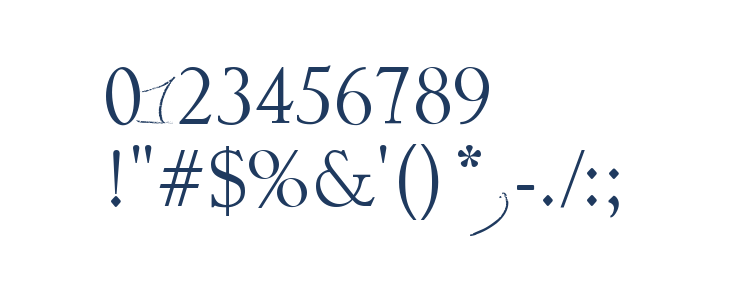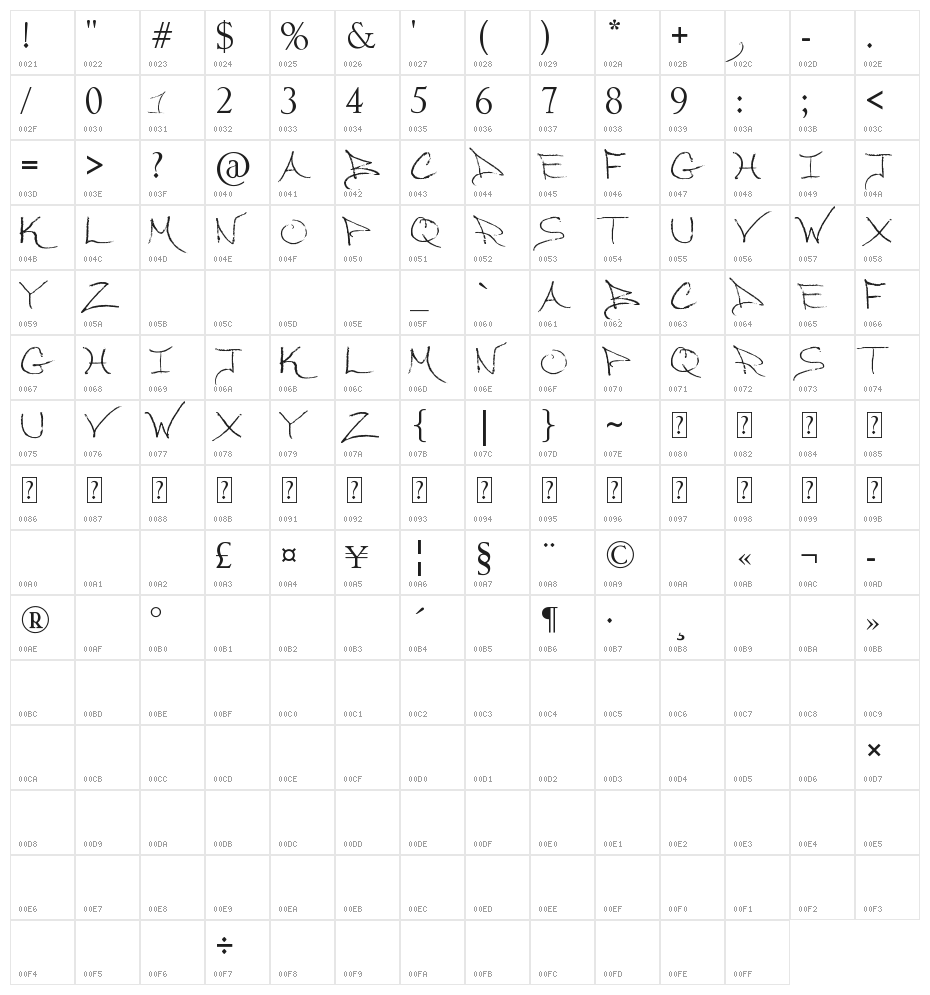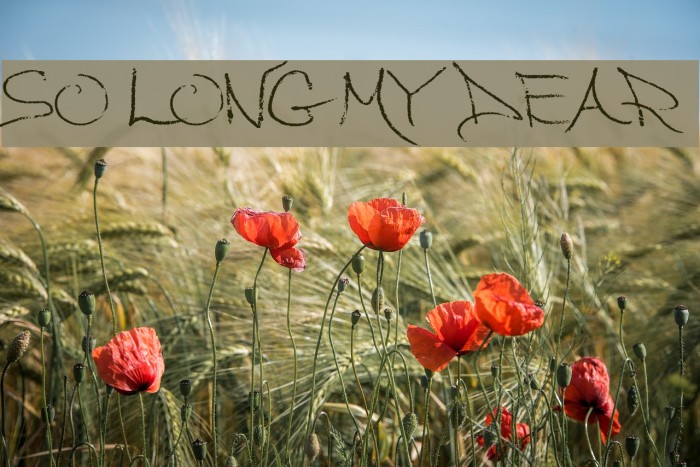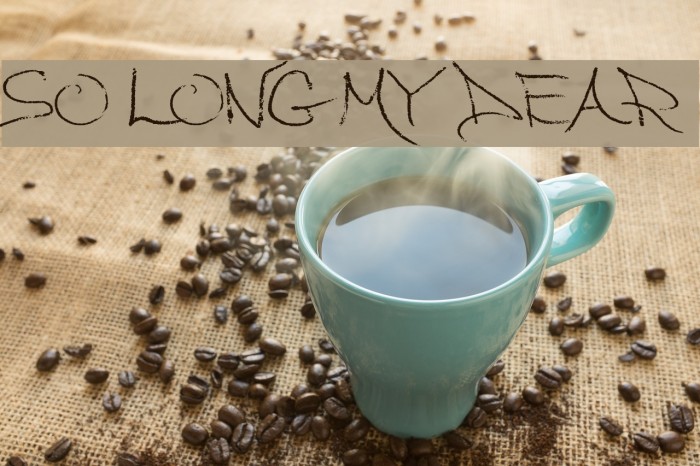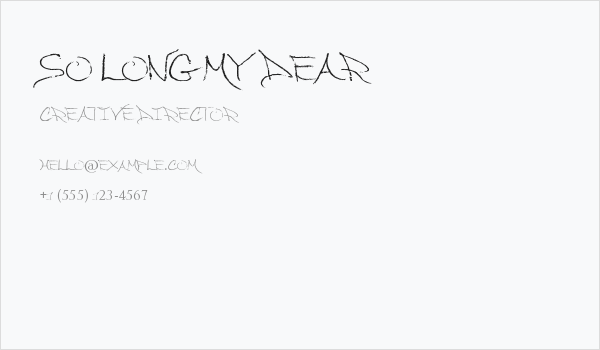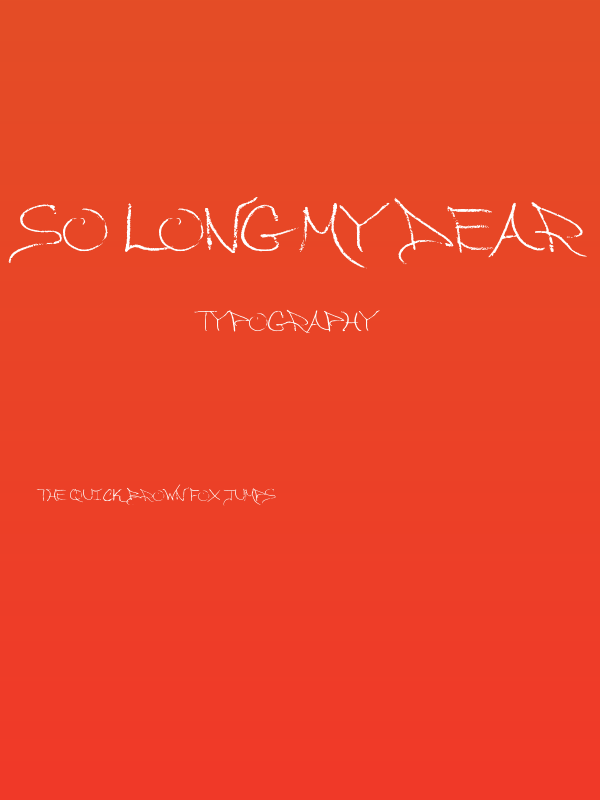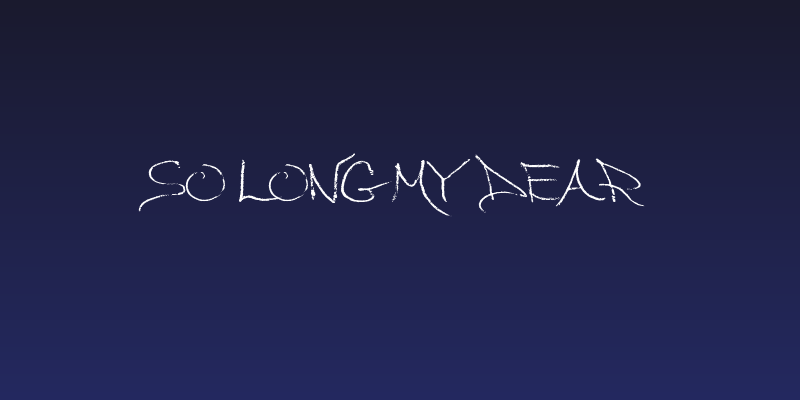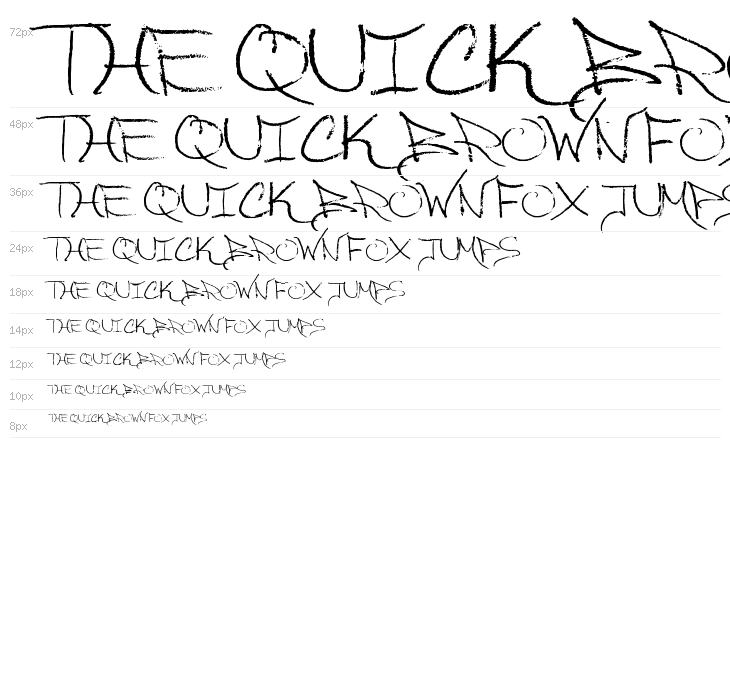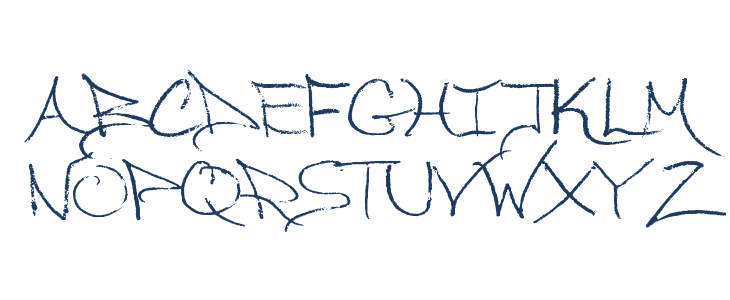
So Long My Dear Font
So Long My Dear Description
This font features a unique, artistic style with a hand-drawn appearance. The letters have a rough, textured look, giving them a dynamic and expressive quality. The uppercase letters are elongated with sharp, angular strokes, while the lowercase letters maintain a consistent flow, adding to the overall fluidity. The numerals are bold and clear, contrasting with the more intricate letterforms. Special characters are designed with the same attention to detail, ensuring they blend seamlessly with the rest of the font. This font's distinctive style makes it ideal for creative and artistic projects.
| Overall Style | Artistic, Expressive |
| Use Case | Headlines, Artistic projects, Branding |
| Proposed Projects | Ideal for album covers, posters, artistic branding, and creative invitations. |